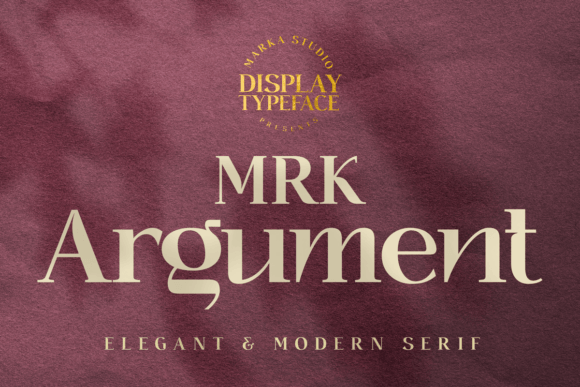
Welcome to the realm of Argument Font, an unprecedented display font that will transform your visual communication into an art form. Its innovative design, born from the creative mind of markadesign, is a stroke of genius that combines deeper ink traps and shoulders, resulting in an extraordinary look that demands attention. Argument's elegance and modernity will leave an indelible mark on your branding, making it the perfect choice for headlines and logos that seek to captivate and inspire.
Indulge in the luxury of Argument's aesthetic, a symphony of sophistication and style. This remarkable font exudes an air of exclusivity and refinement, making it the ideal companion for branding projects that demand a touch of opulence. Embark on a creative journey where your designs transcend the ordinary and enter the realm of the extraordinary.
Unleash the power of Argument's versatility, a font that effortlessly adapts to a myriad of design landscapes. It seamlessly blends into minimalist compositions, adding a touch of understated elegance, yet it also thrives in more elaborate designs, where its intricate details take center stage. Whether you're crafting logos, posters, or website headers, Argument will elevate your creations with a dash of sophistication.
Immerse yourself in the world of Argument, a font that ignites the imagination and sparks creativity. Its captivating curves and alluring strokes invite you to explore new design horizons. Let Argument be your guide as you navigate the boundless realm of visual expression.